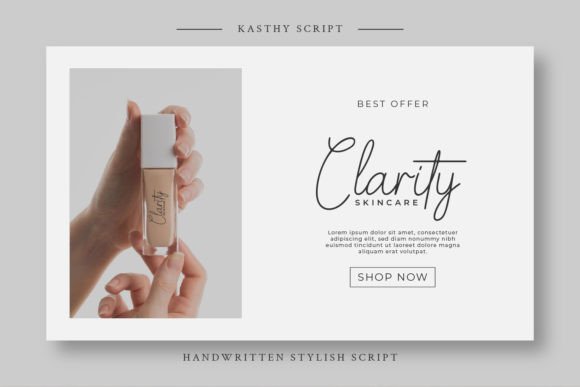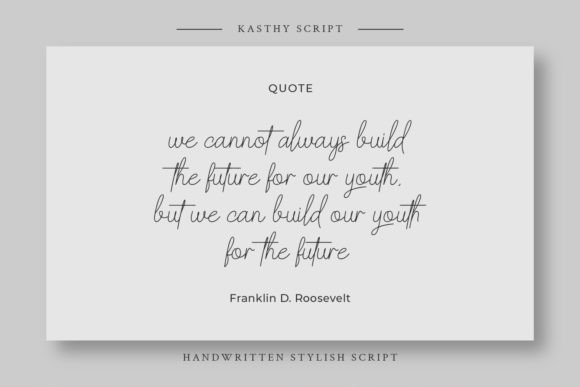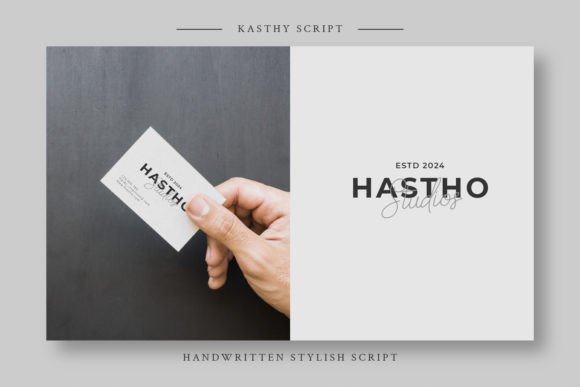
Introduction to Kasthy Font
Introducing Kasthy Script Handwritten, a captivating font that brings the charm and elegance of handwritten calligraphy to your digital creations.
With its flowing strokes, graceful curves, and authentic handwritten style, Kasthy Script Handwritten adds a touch of personalization and sophistication to any project Kasthy Script Handwritten is a versatile font that can be used for a variety of purposes, including: – Wedding invitations and stationery – Logos and branding – Marketing materials – Social media graphics – Product packaging **This font is: ** – Authentic handwritten style – Multilingual support – Easy to use.
Key Features of Kasthy Font
Why Choose Kasthy Font?
Kasthy Font offers exceptional quality and versatility, making it a valuable addition to your design toolkit. Whether you’re creating for personal projects or commercial use, Kasthy Font delivers professional results.